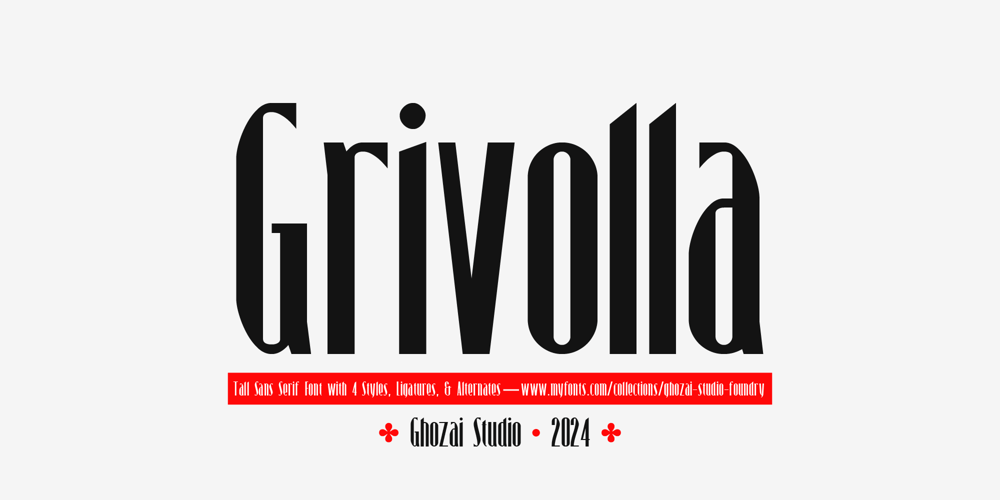
Grivolla
Grivolla font
Grivolla Font Family was designed by Manzur Ghozaali and published by Ghozai Studio. Grivolla contains 4 styles and family package options. Grivolla is a tall – elegant sans-serif font, drawing inspiration from the classic (1920-1930) era. Featuring 4 styles, ligatures, and alternate OpenType features, it offers versatility and sophistication. Whether for headlines, billboards, magazines, websites, titles, posters, branding, or logos, Grivolla is the perfect choice for any design project